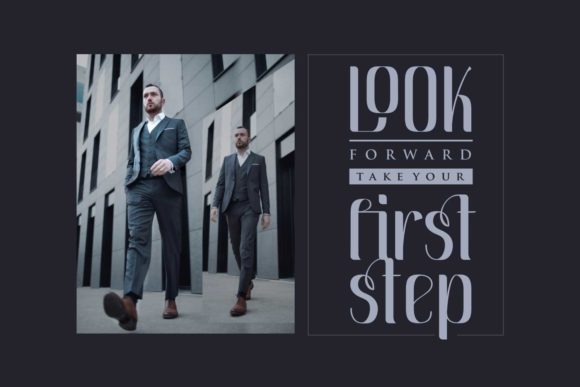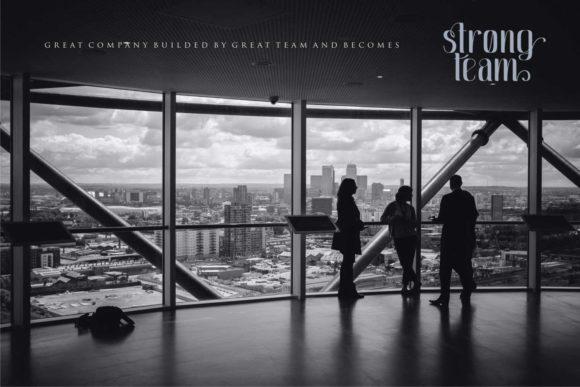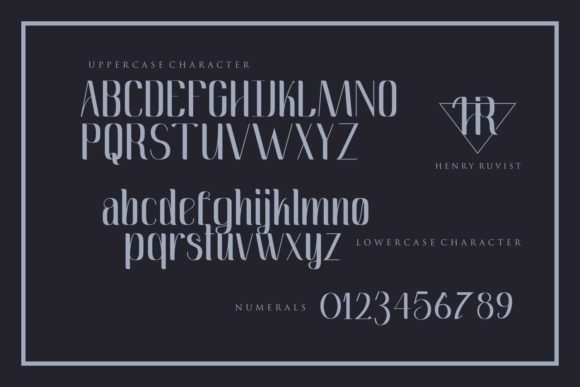
Introduction to Henry Ruvist Font
Henry Ruvist is a condensed font with an elegant touch.
It is suitable for any branding project like logos, t-shirt printing, sport designs, and more It will look outstanding in a wide range of contexts.
Key Features of Henry Ruvist Font
Why Choose Henry Ruvist Font?